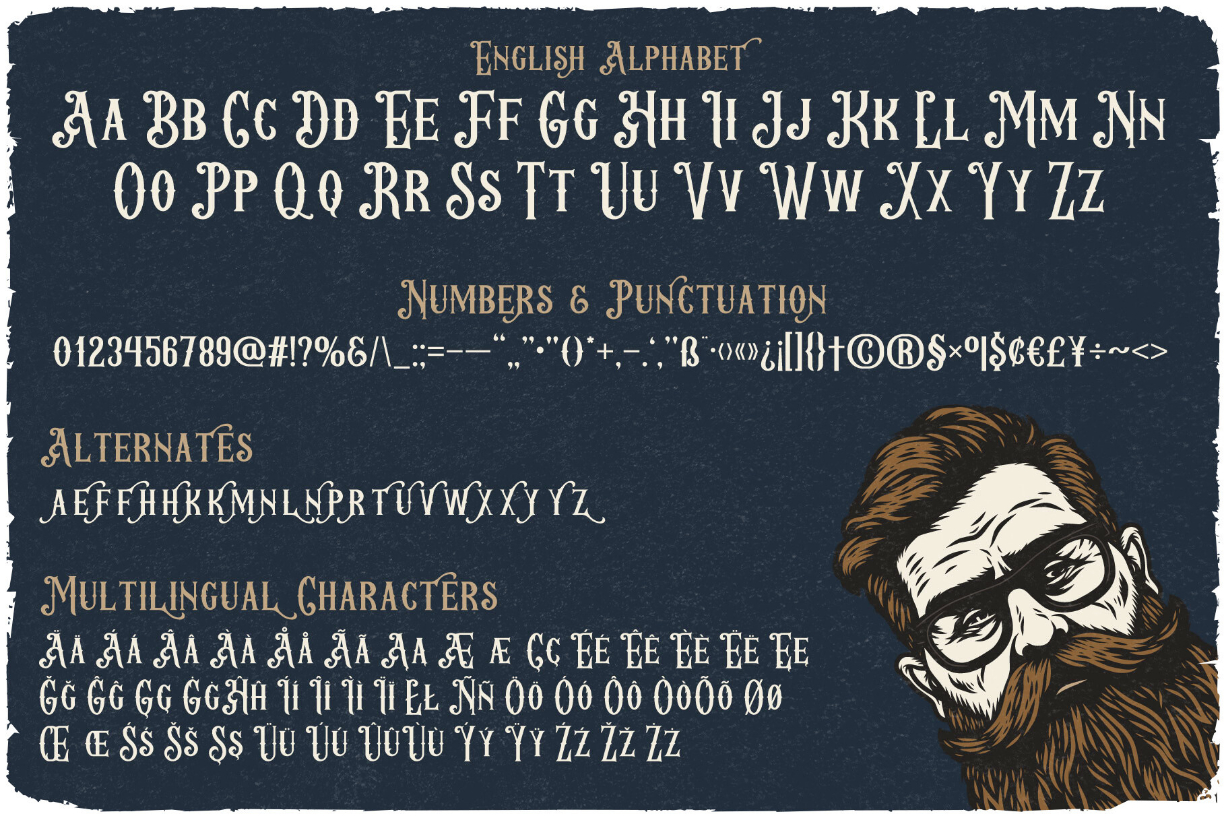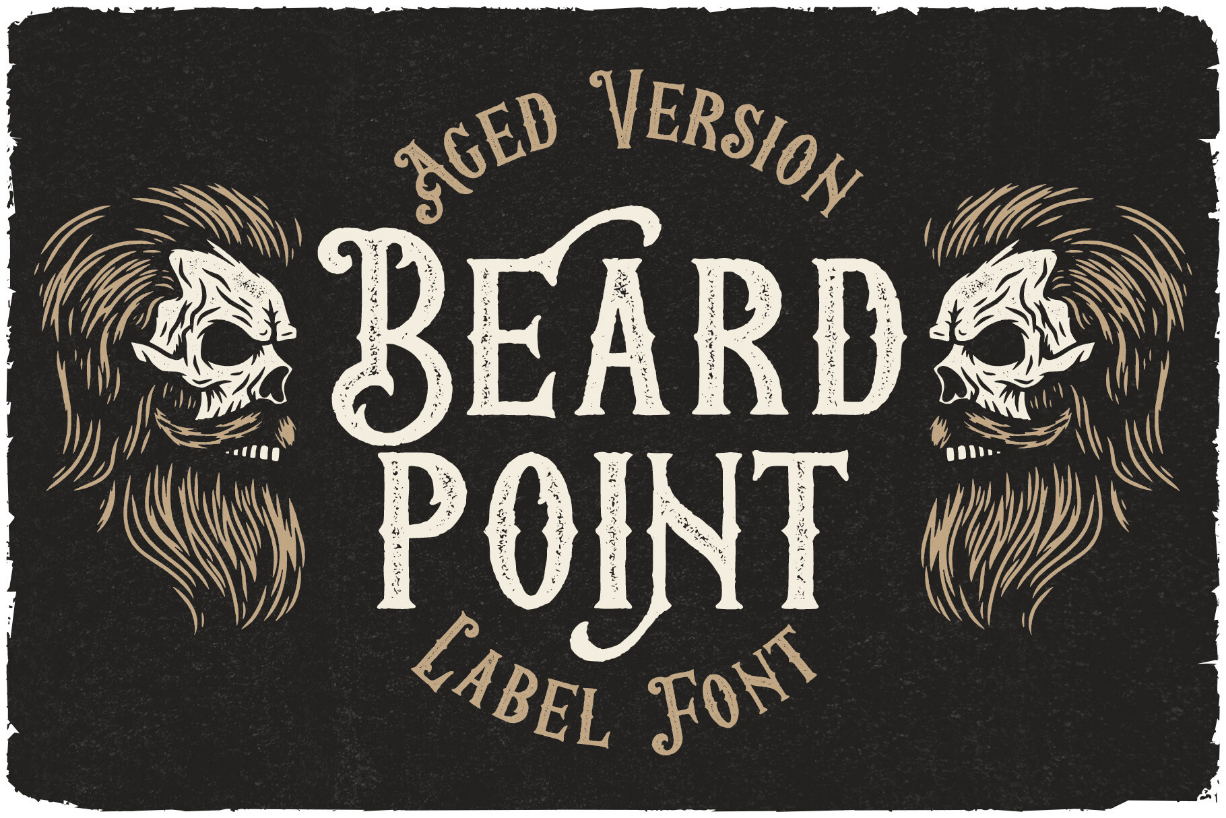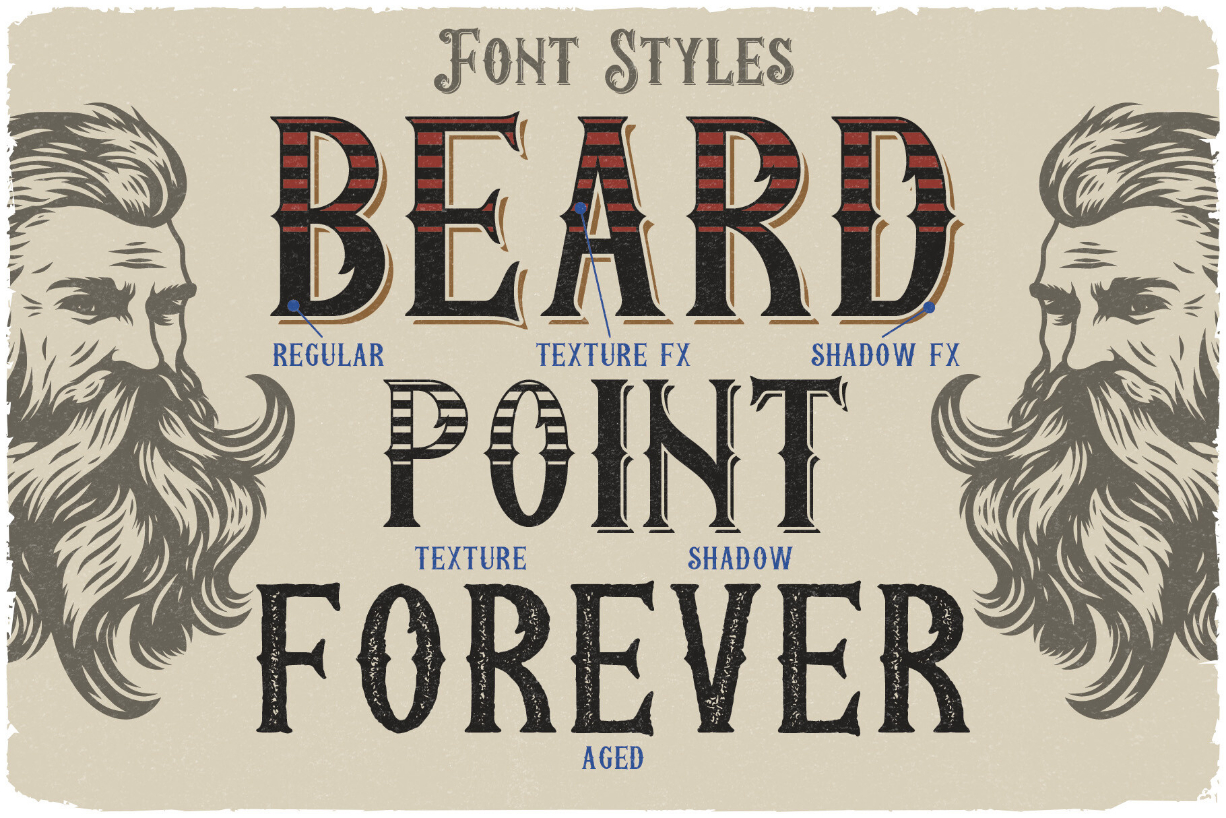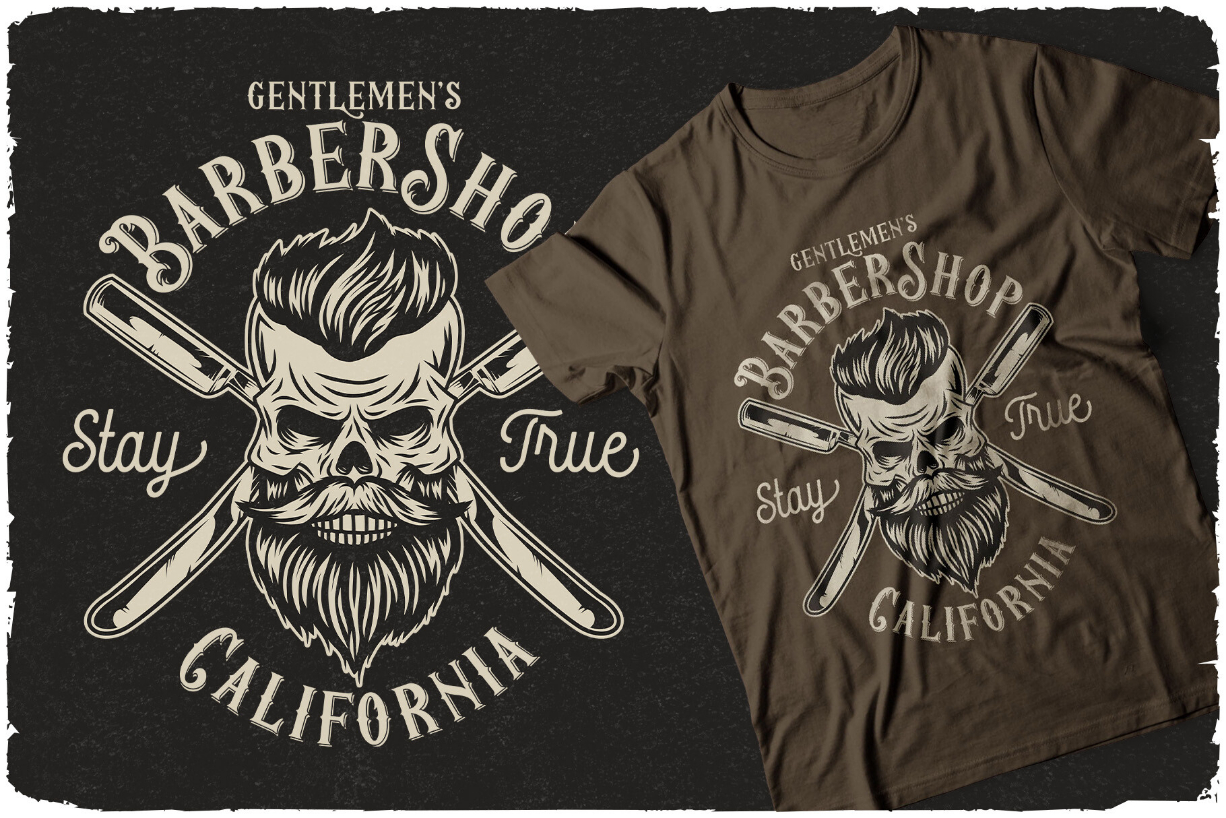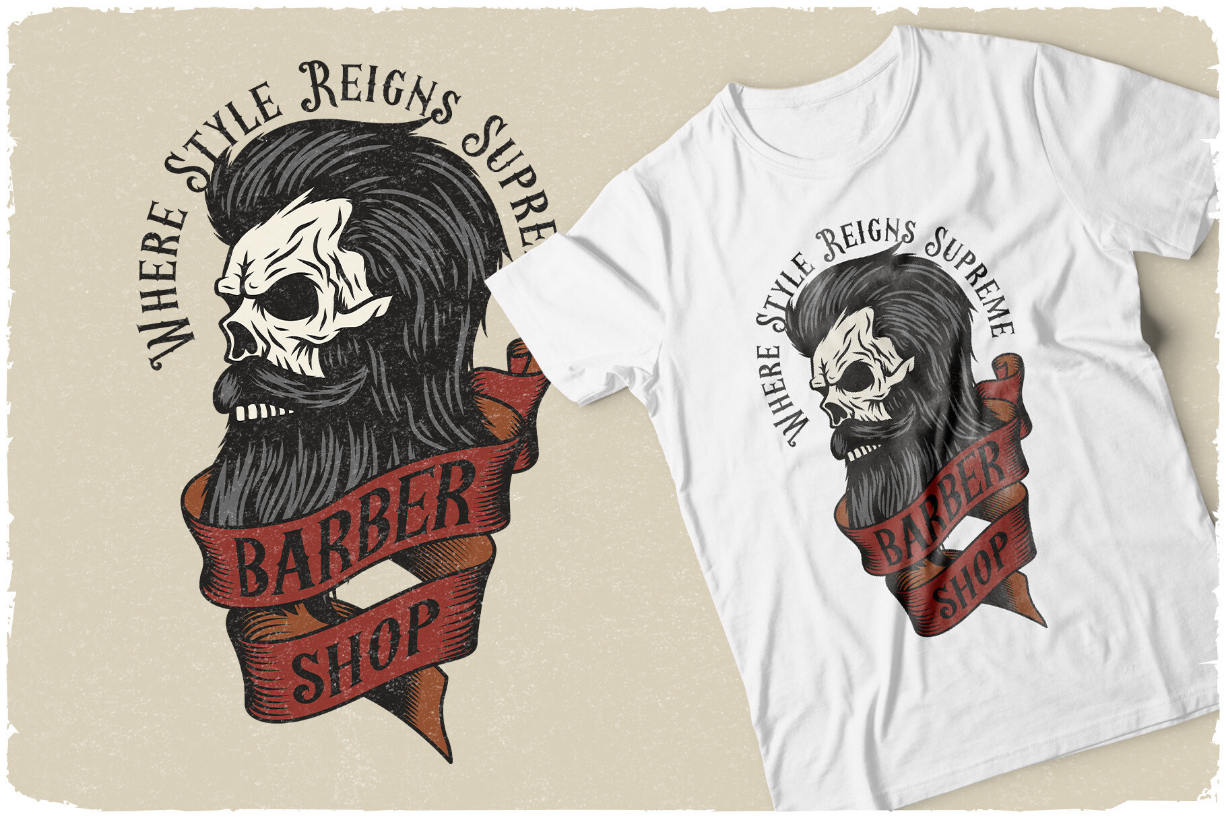
Beard Point Font
About Beard Point Font
Introducing vintage label font named Beard Point. This font family has an additional characters and multilingual support (check out all available characters on preview). The font family has six styles: Regular, Shadow, Texture, Shadow FX, Texture FX, Aged. This font will look good on any vintage styled designs like a poster, T-shirt, label, logo, etc.